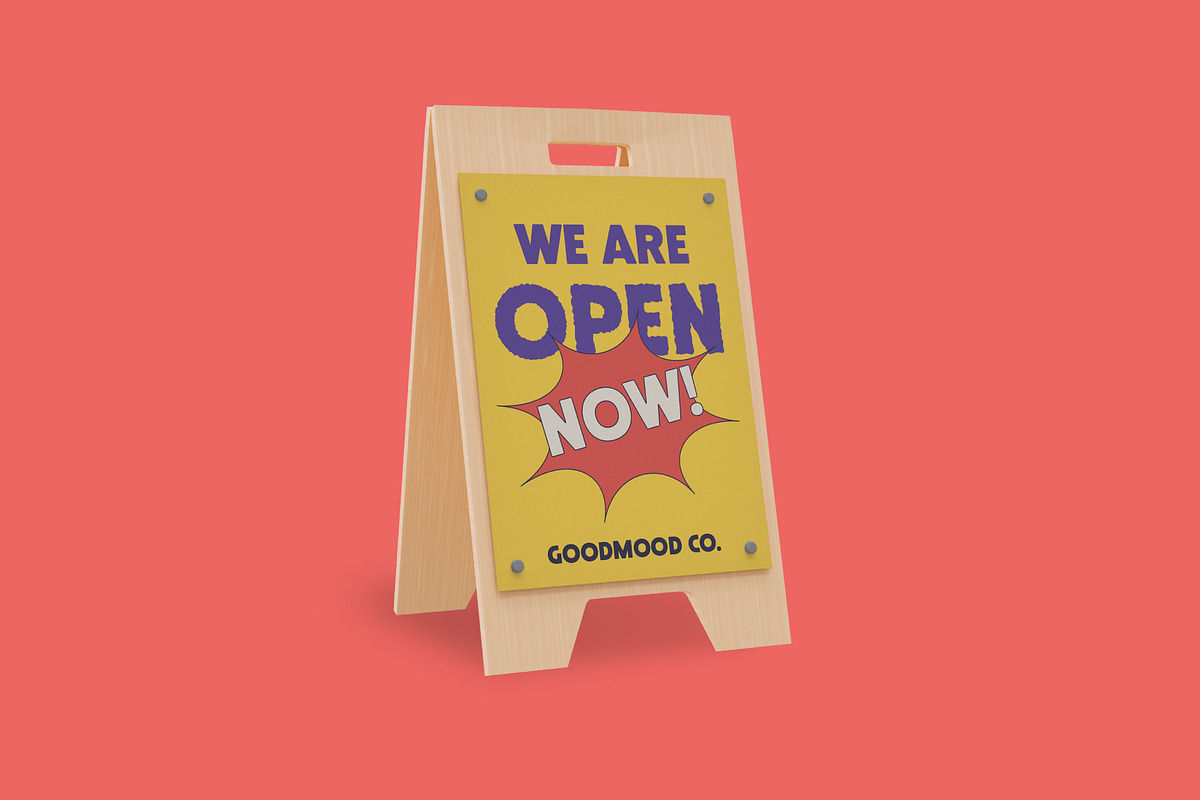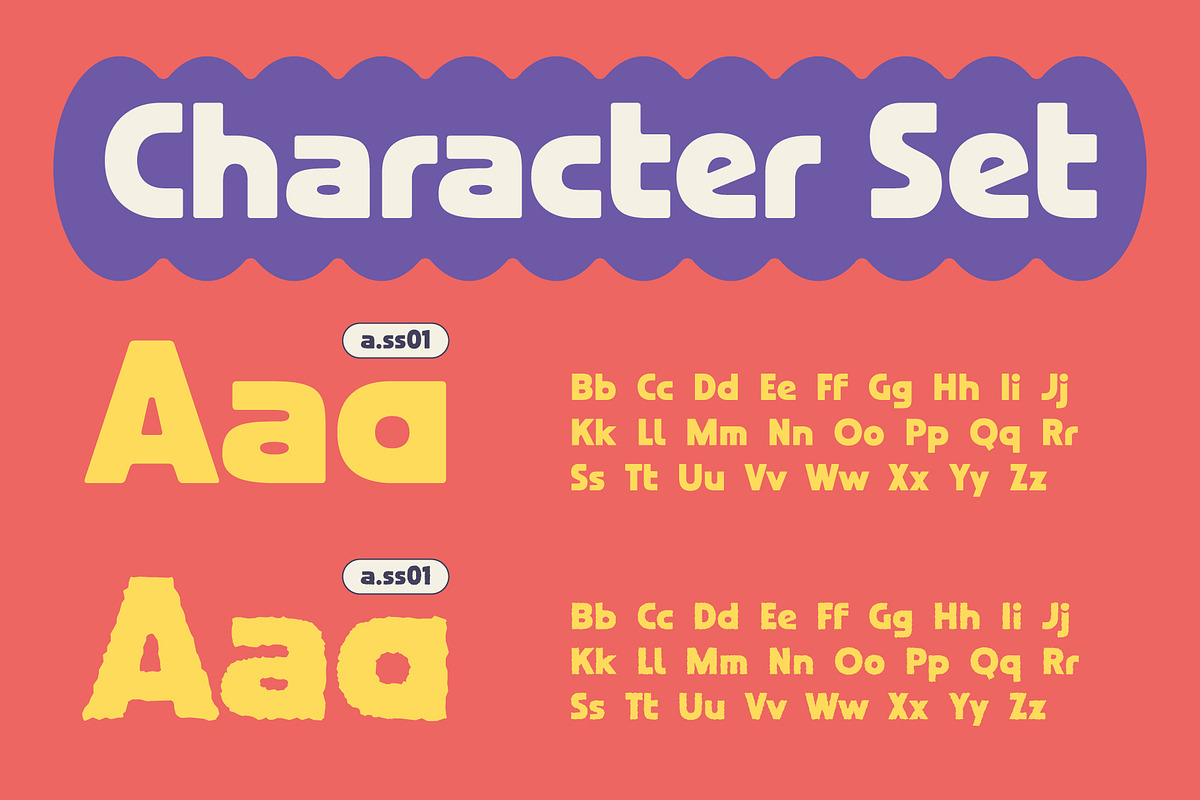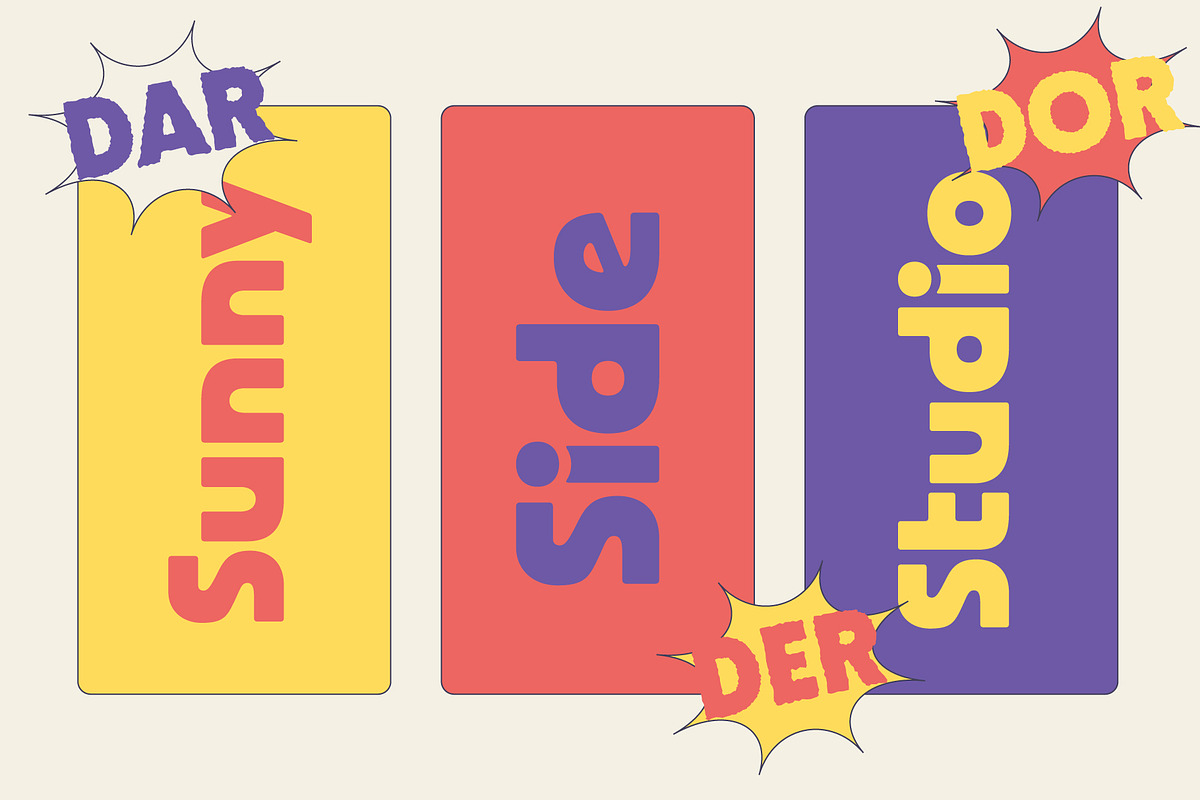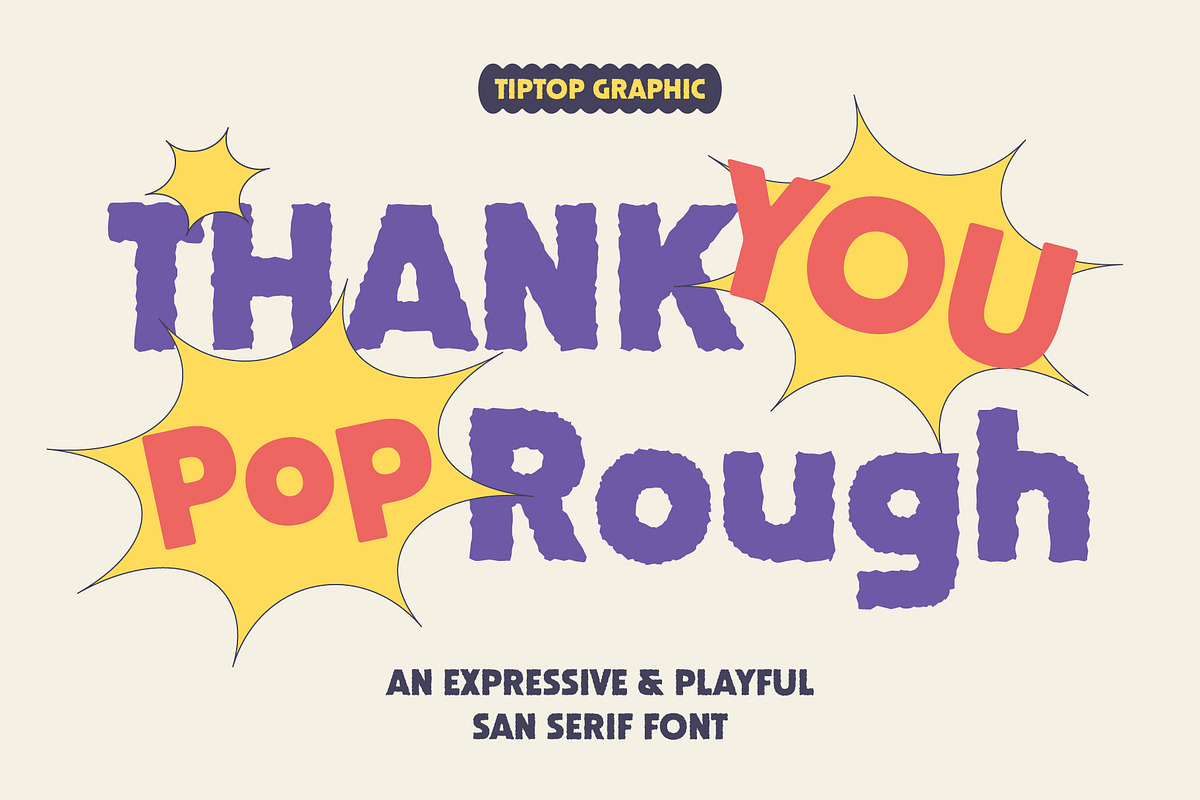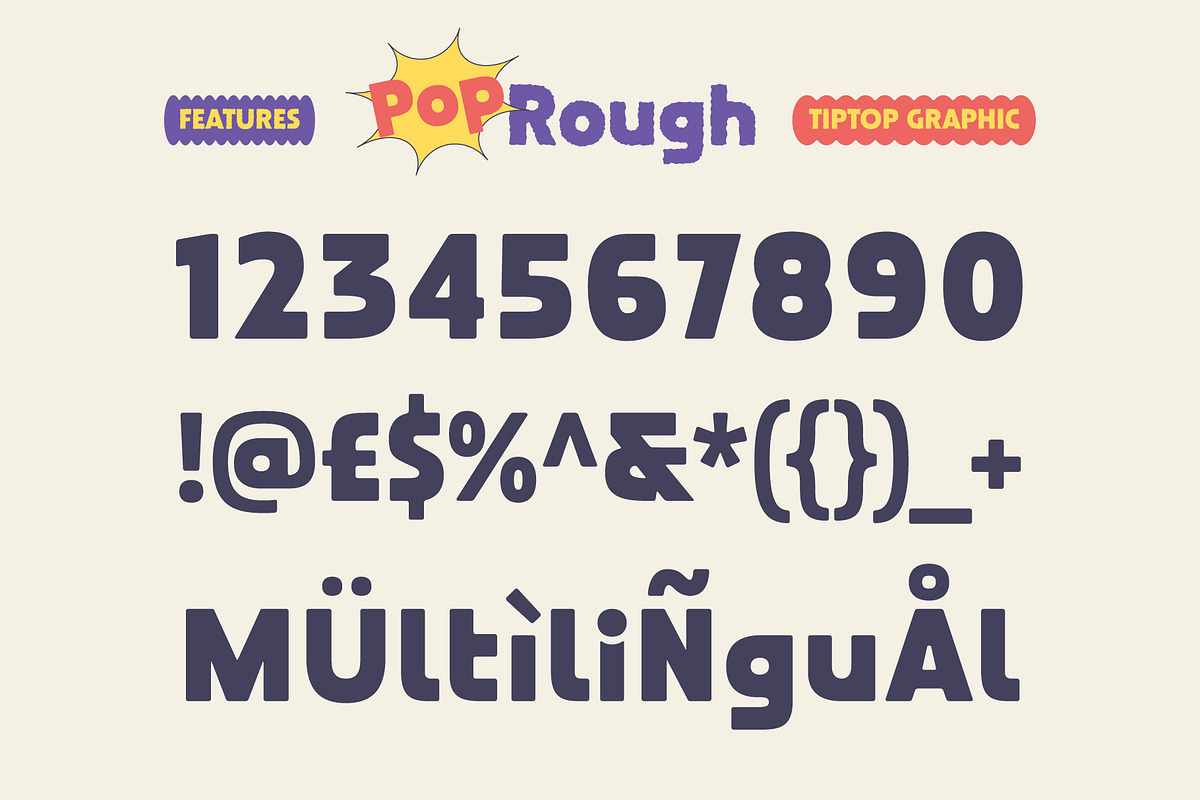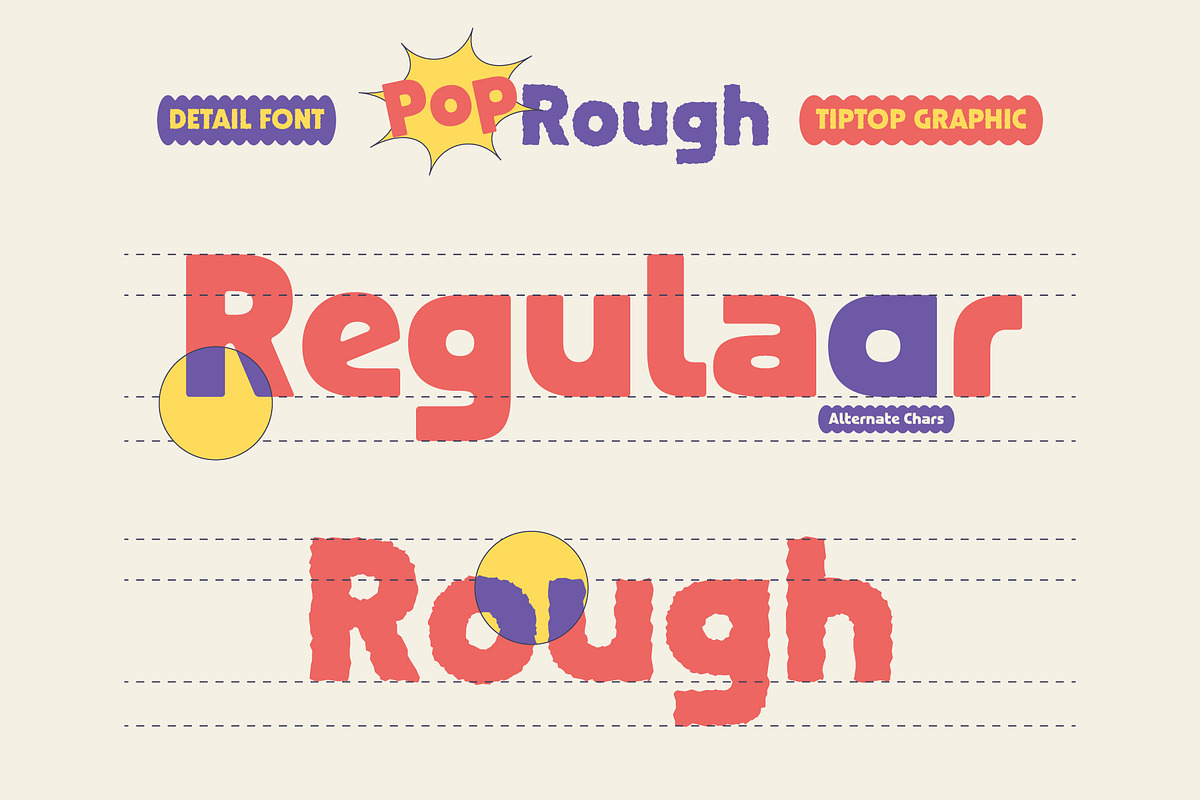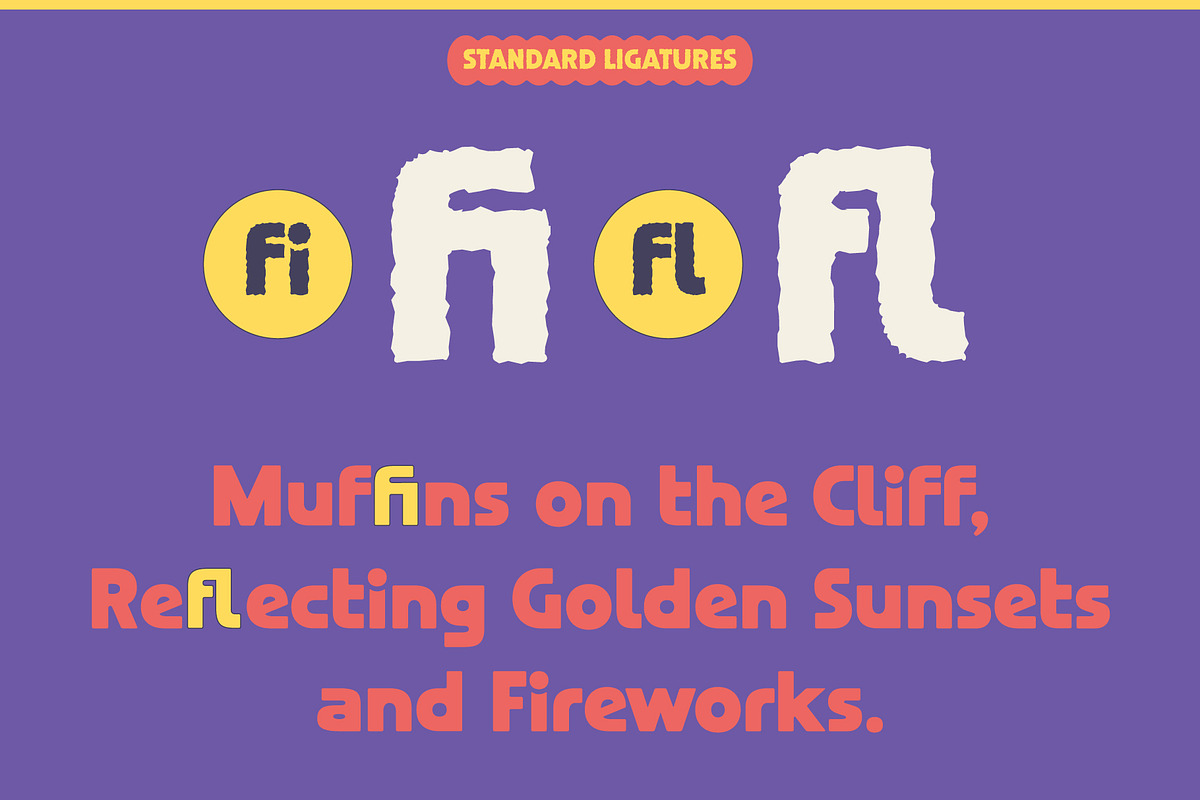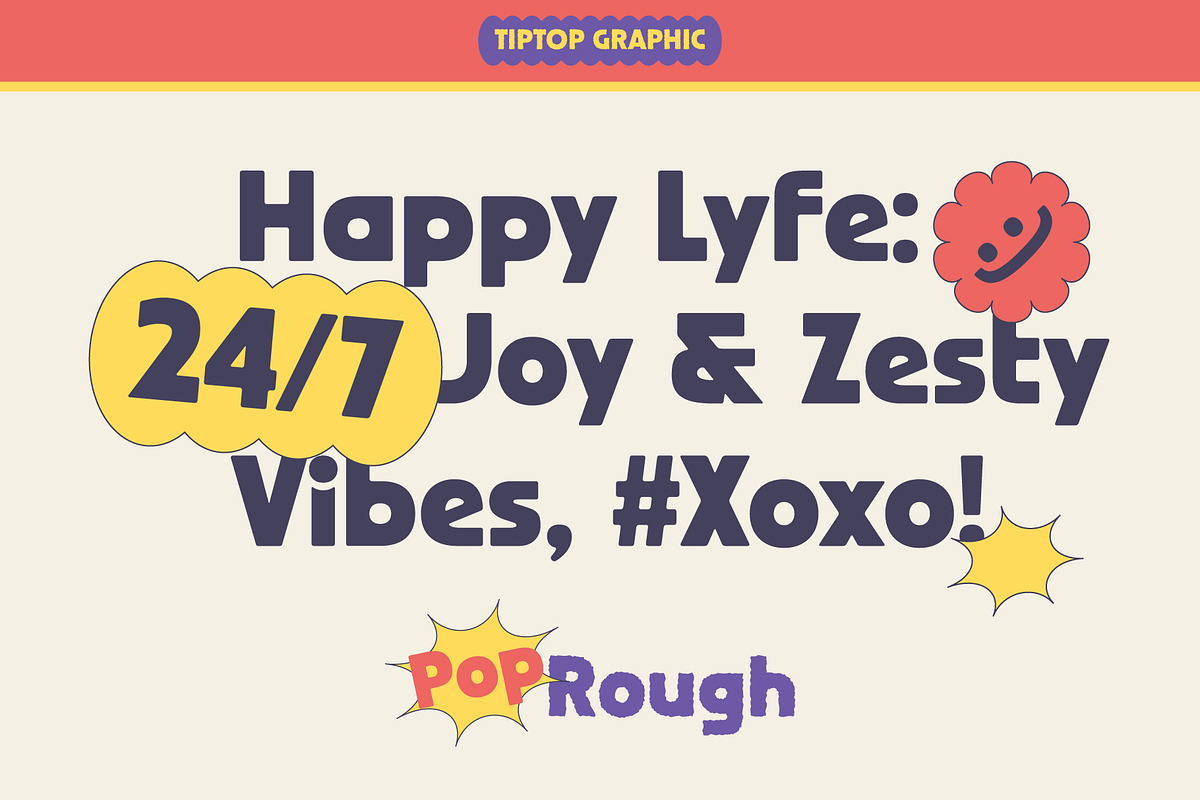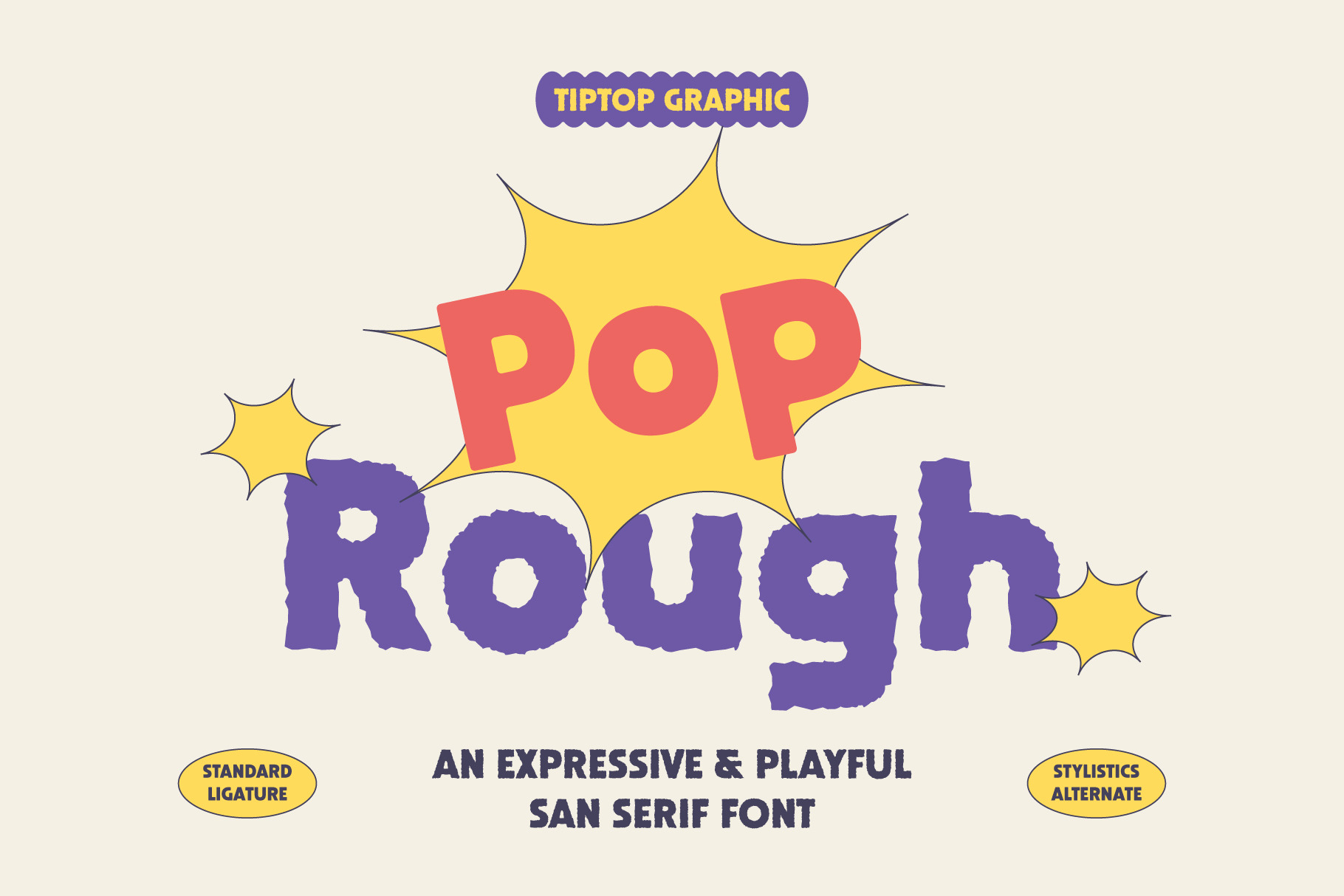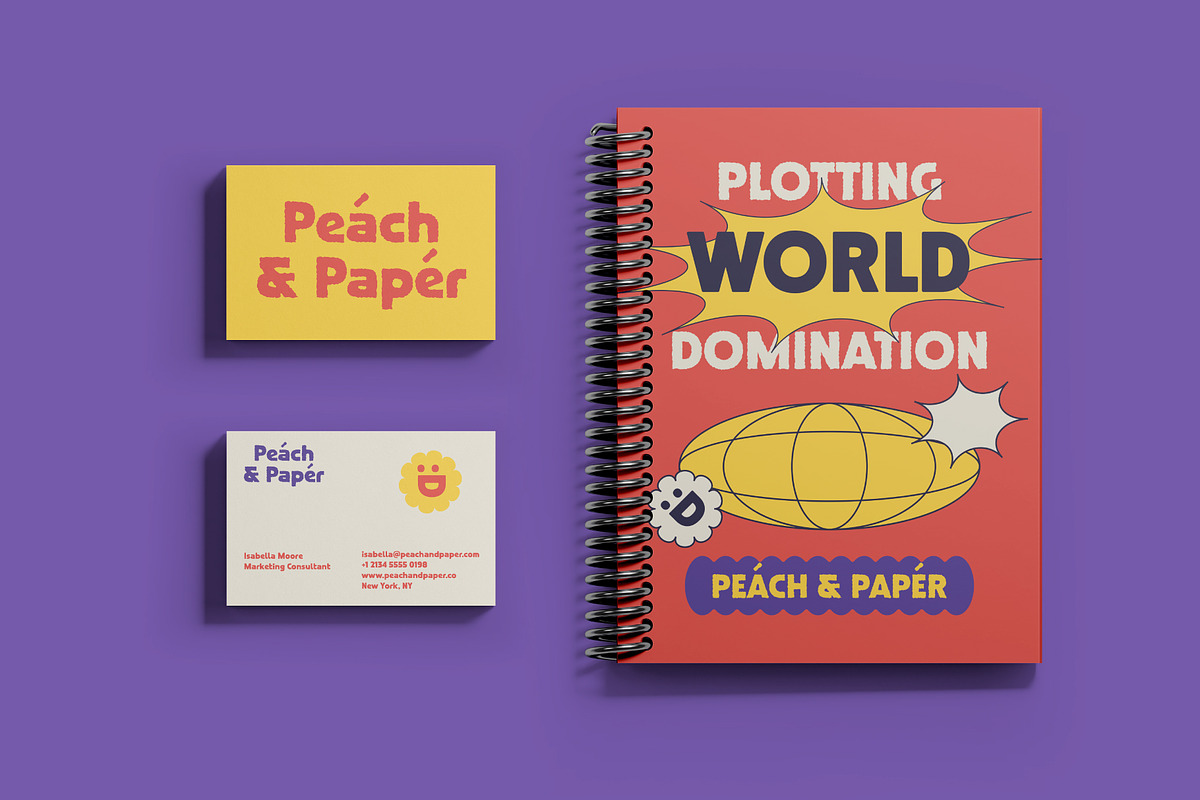
Pop Rough – Expressive Playful Font
Pop Rough – Expressive and Playful Font
Pop Rough – Expressive and Playful Font is a lively Playful Sans typeface that bursts with personality. With its rough, hand-drawn edges and bold shapes, it brings a fun, carefree energy to any design. Perfect for posters, packaging, children’s projects, and eye-catching social media graphics, this font instantly adds a sense of creativity and spontaneity. Whether you want to highlight a quirky headline or create a friendly brand identity, Pop Rough makes your message stand out with charm and playfulness.
Pop Rough – Expressive and Playful Font features:
- Punctuation & Numbers
- 2 Style: Regular & Rough
Elevate and explore the design possibilities with this Playful Sans Font!